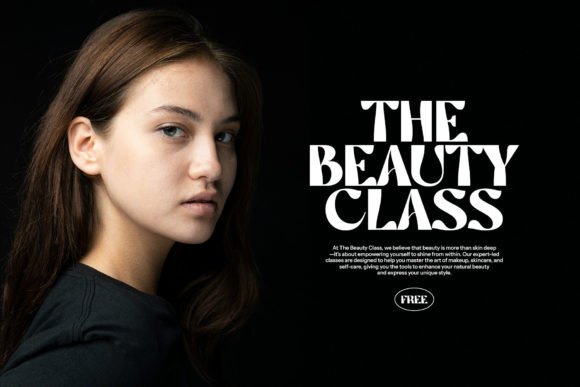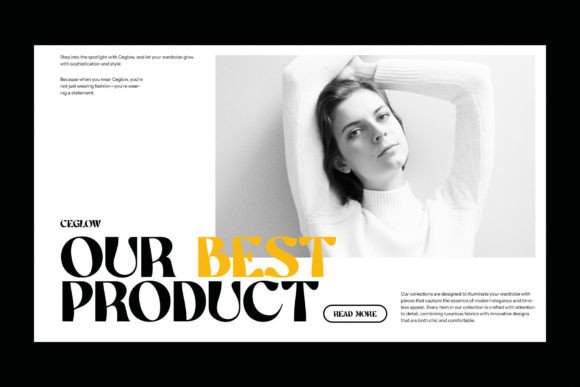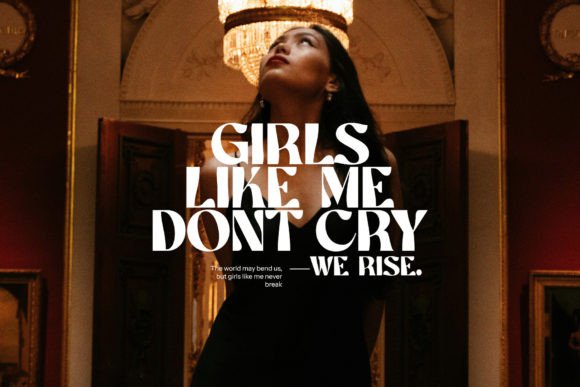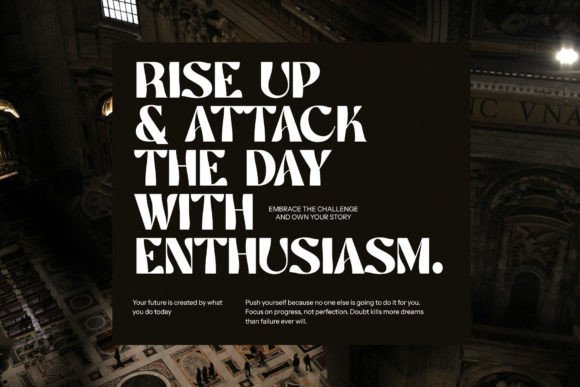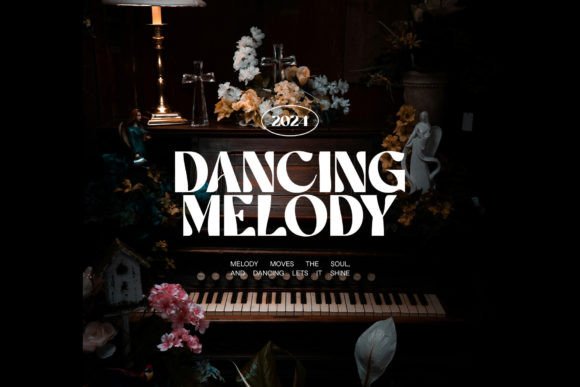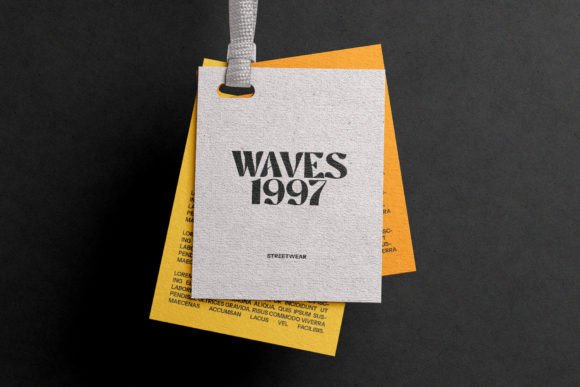
Introduction to Mands Font
As a designer, there’s nothing quite like the rush of creating something entirely new and unique. You’re brainstorming ideas for a project, pouring over inspiration boards, and finally, the perfect concept clicks into place. It’s moments like these that remind us why we love our jobs. And what’s even more exciting is when we stumble upon the perfect design resource to bring that vision to life. Enter Mands Font, a game-changing typeface that’s about to take your creative projects to the next level.
With its elegant, modern aesthetic and ornate flourishes, Mands Font is a must-have for designers looking to add a touch of sophistication to their work. Whether you’re working on a logo, headline, or title, this versatile font is sure to impress. Plus, with its transparent background, you can easily layer it over images or other design elements for a seamless look.
Key Features of Mands Font
- Features a unique and stylish aesthetic, making it an excellent choice for designers seeking to add a distinctive touch to their work.
Honest Review: Mands Font
I recently stumbled upon the Mands Font and I must say, it’s a great addition to any designer’s toolkit. As a designer, I’m always on the lookout for high-quality fonts that can elevate my creative projects. Mands Font delivers on this front, offering a beautiful and unique design that’s perfect for a wide range of applications.
One of the standout features of Mands Font is its transparent background, making it easy to integrate into any design. This is especially useful for designers who work with complex backgrounds or want to add an extra layer of depth to their designs.
Here are some of the things that work well with Mands Font:
While Mands Font is a great resource, there are a few limitations to consider:
- ⚠️ Limited font sizes and styles, may not be suitable for large-scale designs
- ⚠️ May require some tweaking to achieve the desired look and feel
Overall, I’m impressed with the Mands Font and would recommend it to any designer looking for a high-quality, unique font for their creative project. With its transparent background and free download, it’s a great resource to have in your toolkit.
Getting the Most Out of Mands Font
To get the most out of Mands Font, use it in conjunction with other design resources, such as graphics and images. Experiment with different font sizes, colors, and styles to create a unique and eye-catching design. Consider using Mands Font in a variety of creative projects, from branding and marketing materials to digital art and graphics.
Common Use Cases for Mands Font
Mands Font is ideal for a wide range of creative projects, including branding and marketing materials, digital art, and graphics. It’s also perfect for use in social media graphics, presentations, and documents. With its high-quality design and transparent background, Mands Font is a versatile and essential design resource for any creative project.